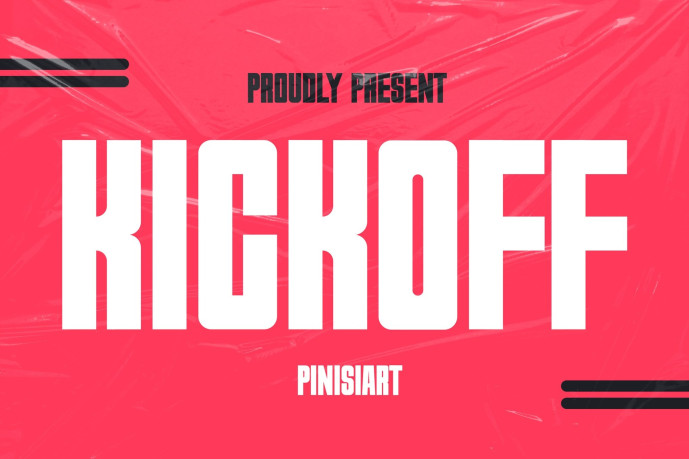
Kickoff Font
KICKOFF Font is a bold condensed athletic display typeface designed for high-impact sports branding, delivering strong visual punch through its sharp terminals, tight spacing, and confident vertical structure. Its assertive, energetic vibe fits perfectly within fitness campaigns, sports posters, and competitive event graphics, while its clean geometric build ensures clarity even in fast-paced layouts. With a powerful presence and compact proportions, KICKOFF excels in headlines, sport graphics, gym branding, and social media promotions where visibility and strength are critical.
Built for designers working in sports, fitness, and performance-driven industries, KICKOFF transforms ordinary layouts into attention-grabbing visuals. Whether you’re designing for athletic branding, esports posters, gym campaigns, or editorial spreads, this typeface communicates intensity, discipline, and motion—helping your message hit harder and faster. It’s the go-to choice when your goal is to create bold headlines that command attention and amplify competitive energy.